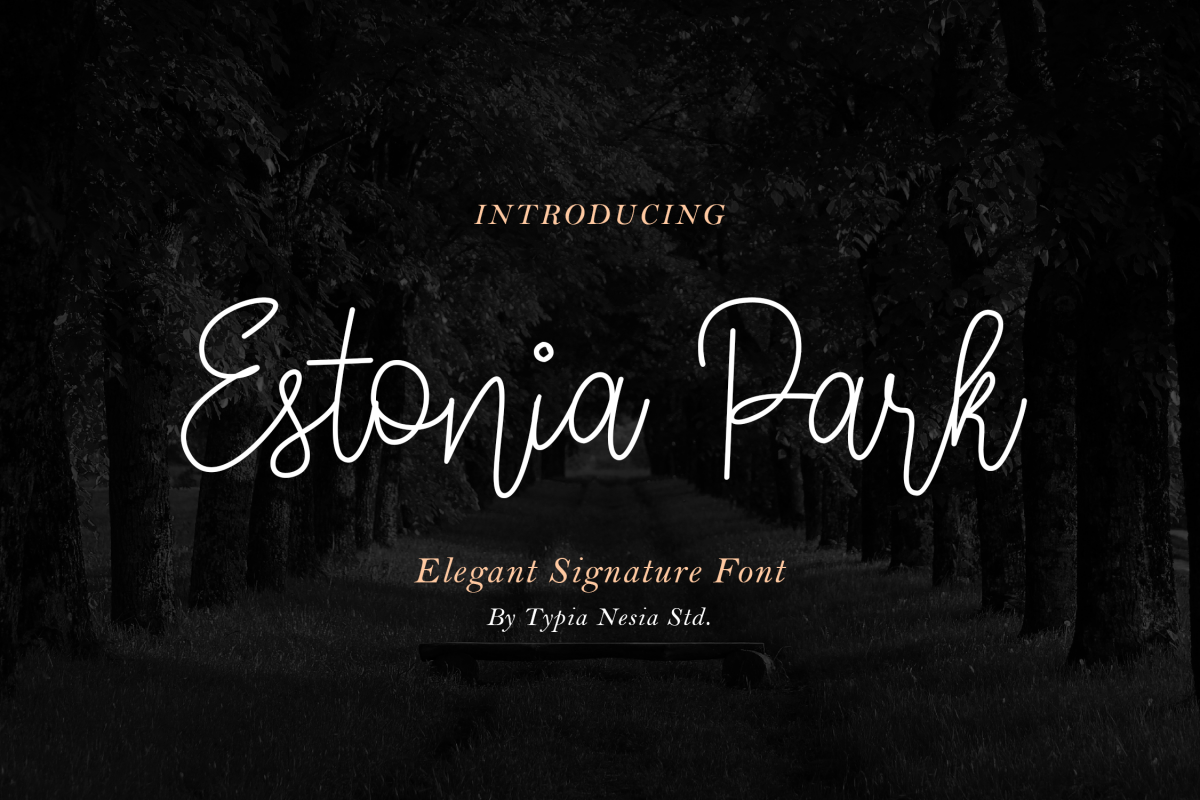
Estonia Park is a handwritten style font.
The perfect flow and easy handwritten style works perfectly on invitations, blog headers, branding, art quote, book / cover Title, and so much more!